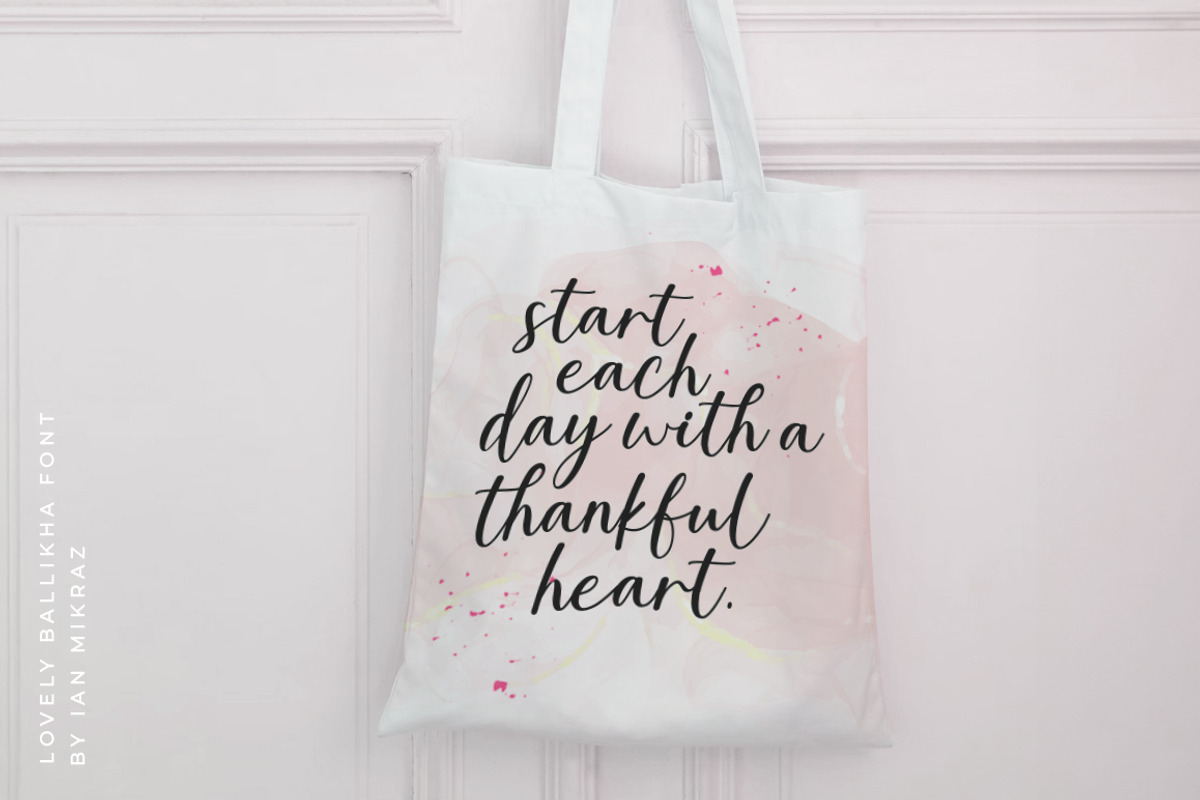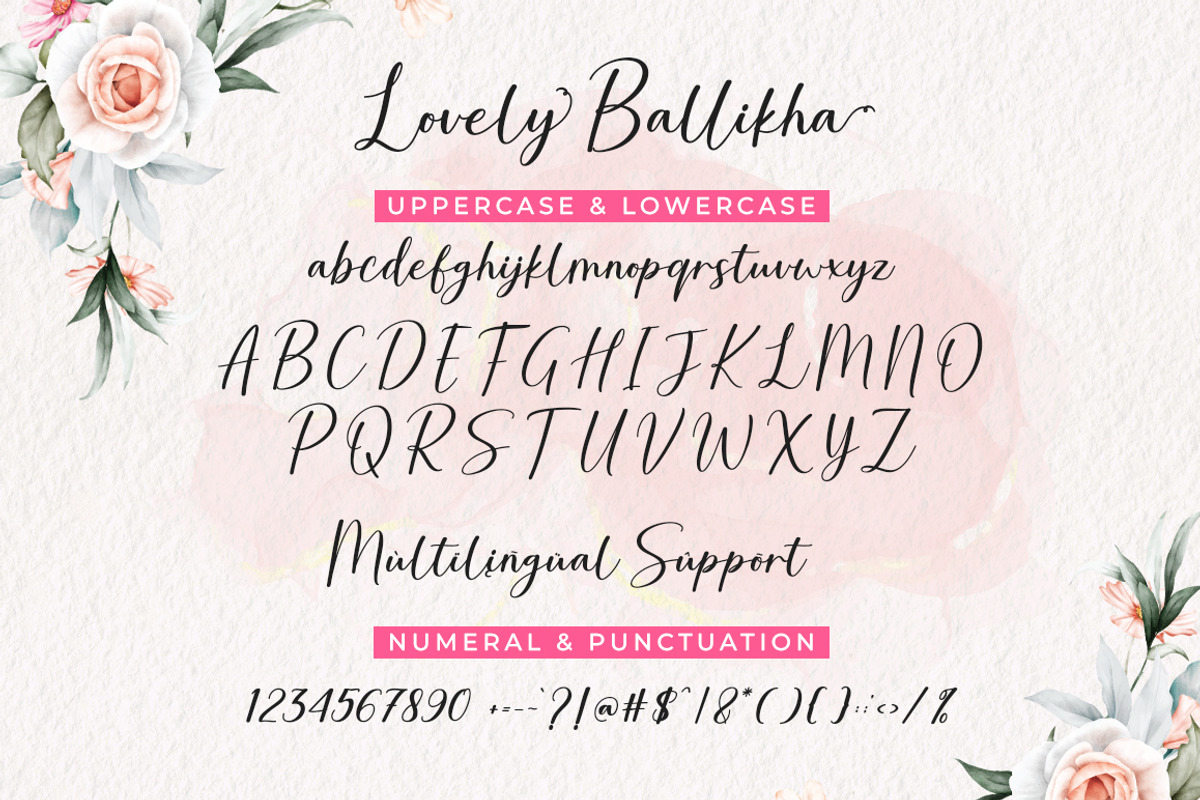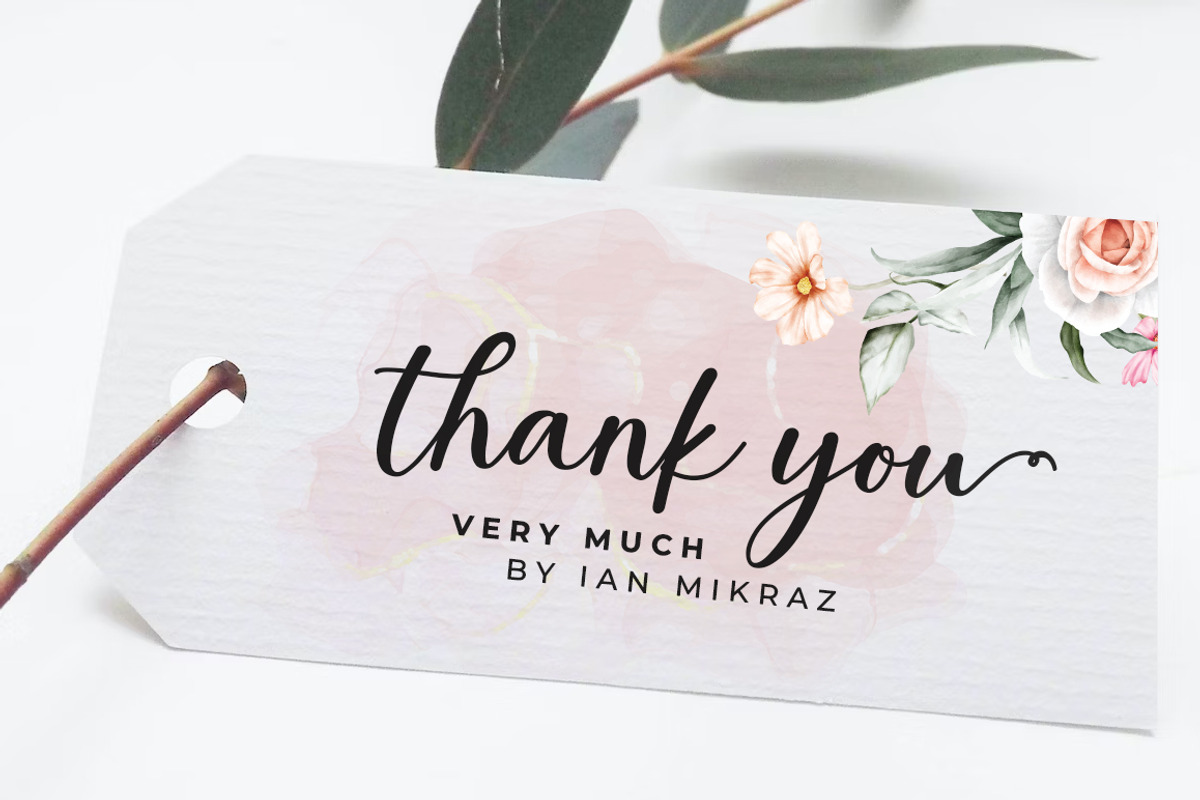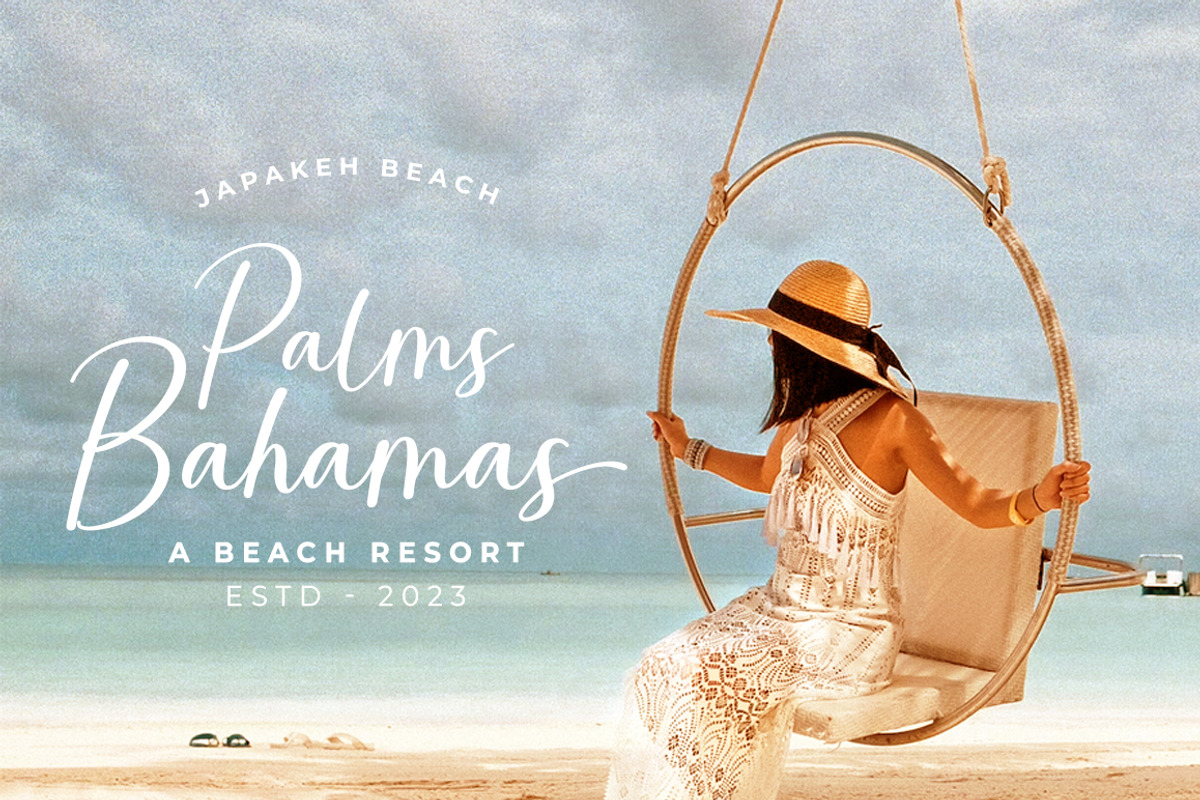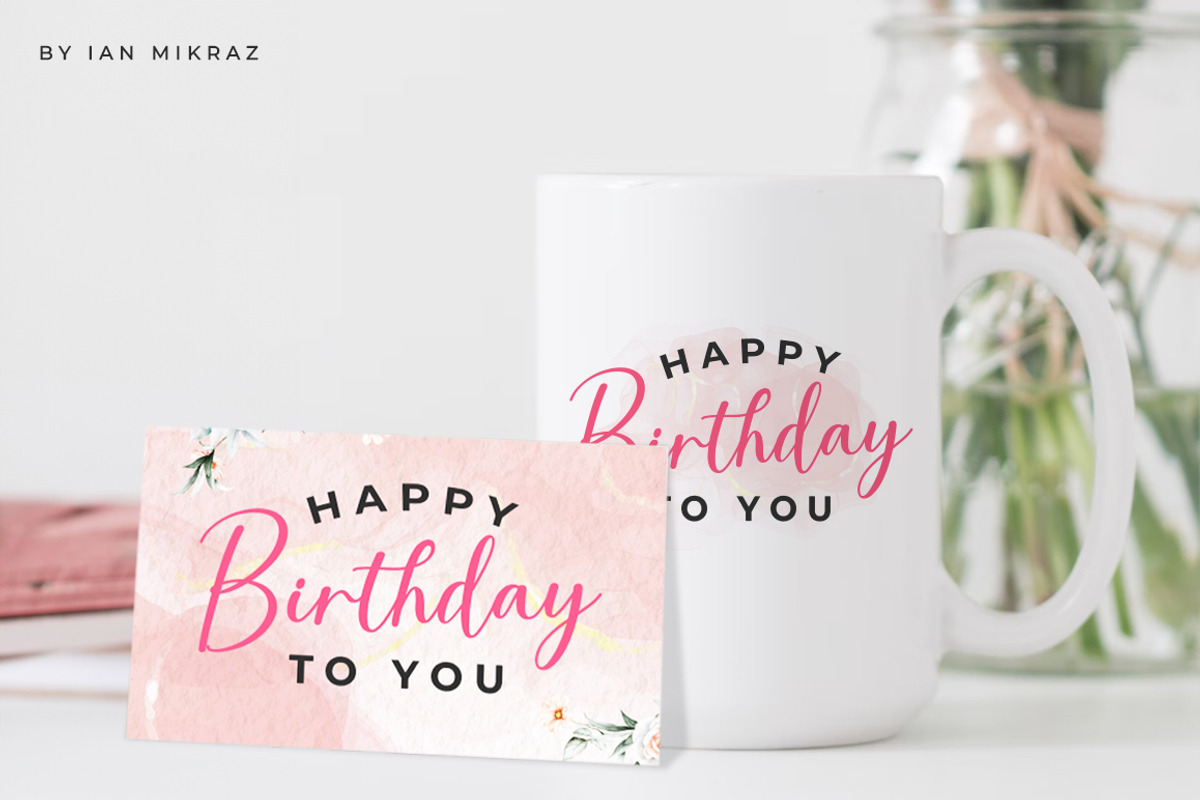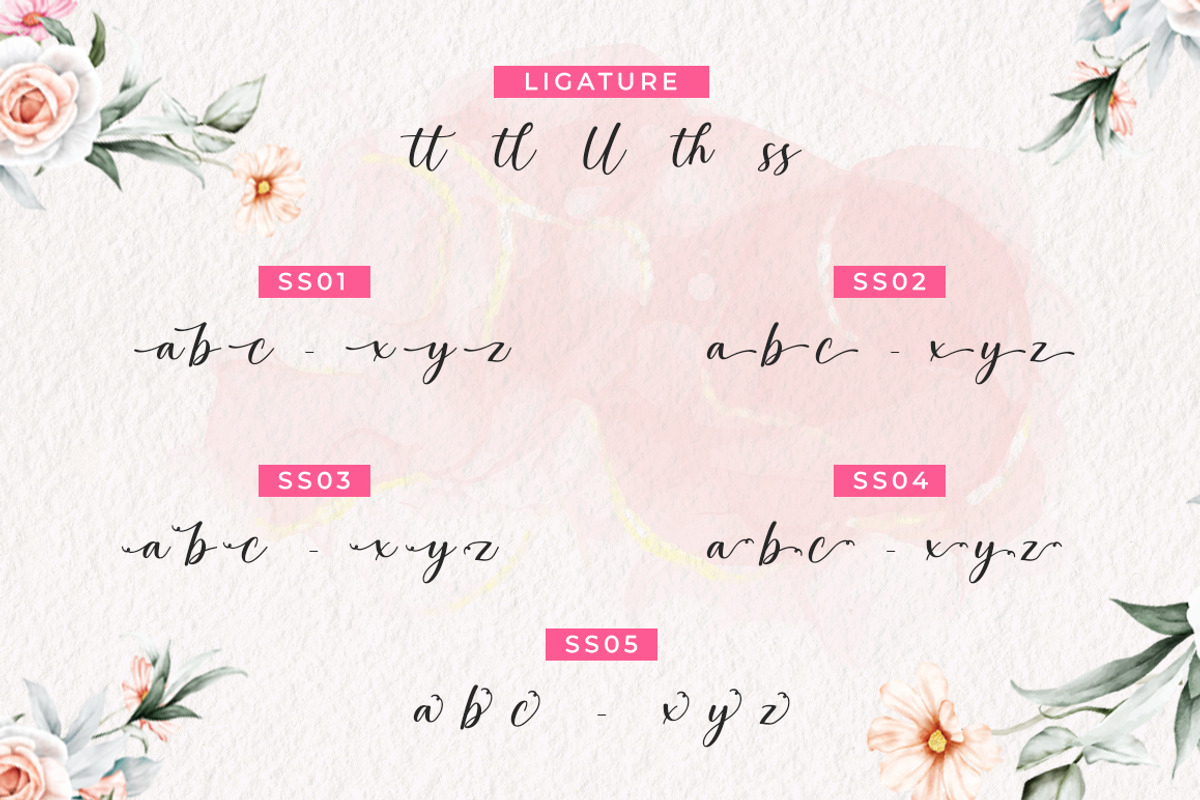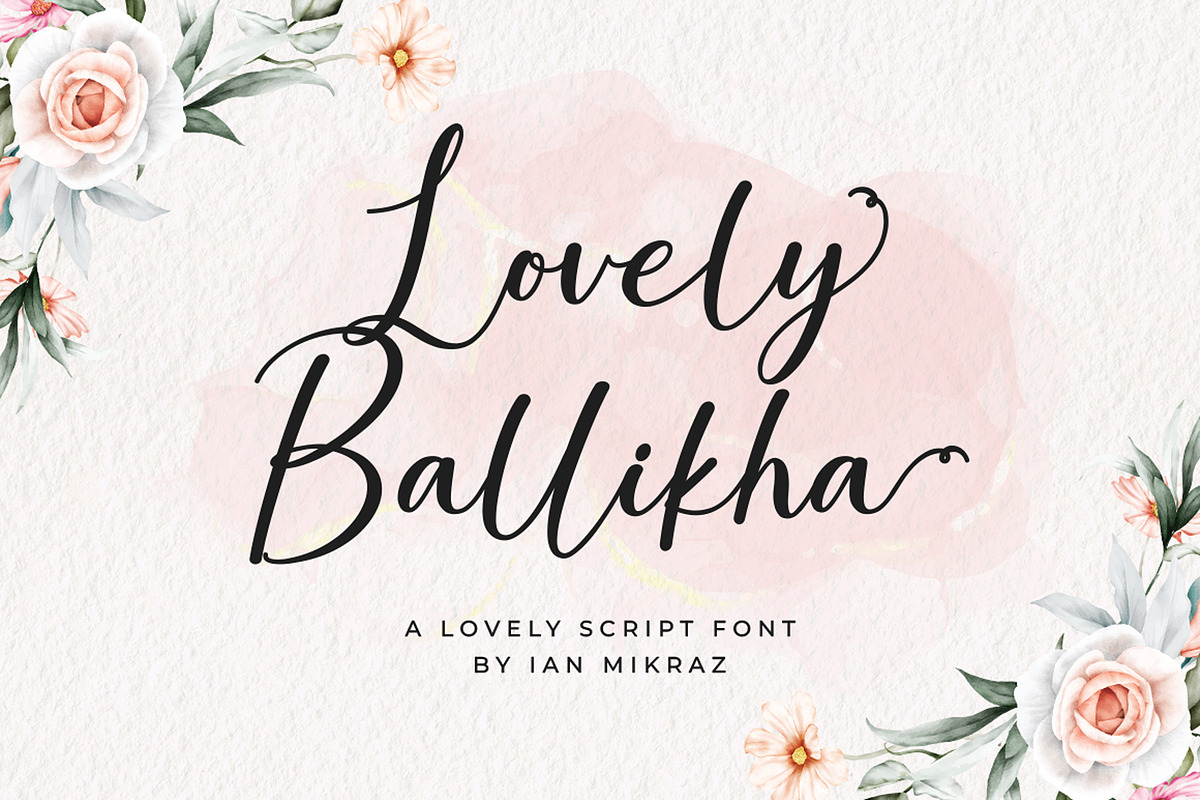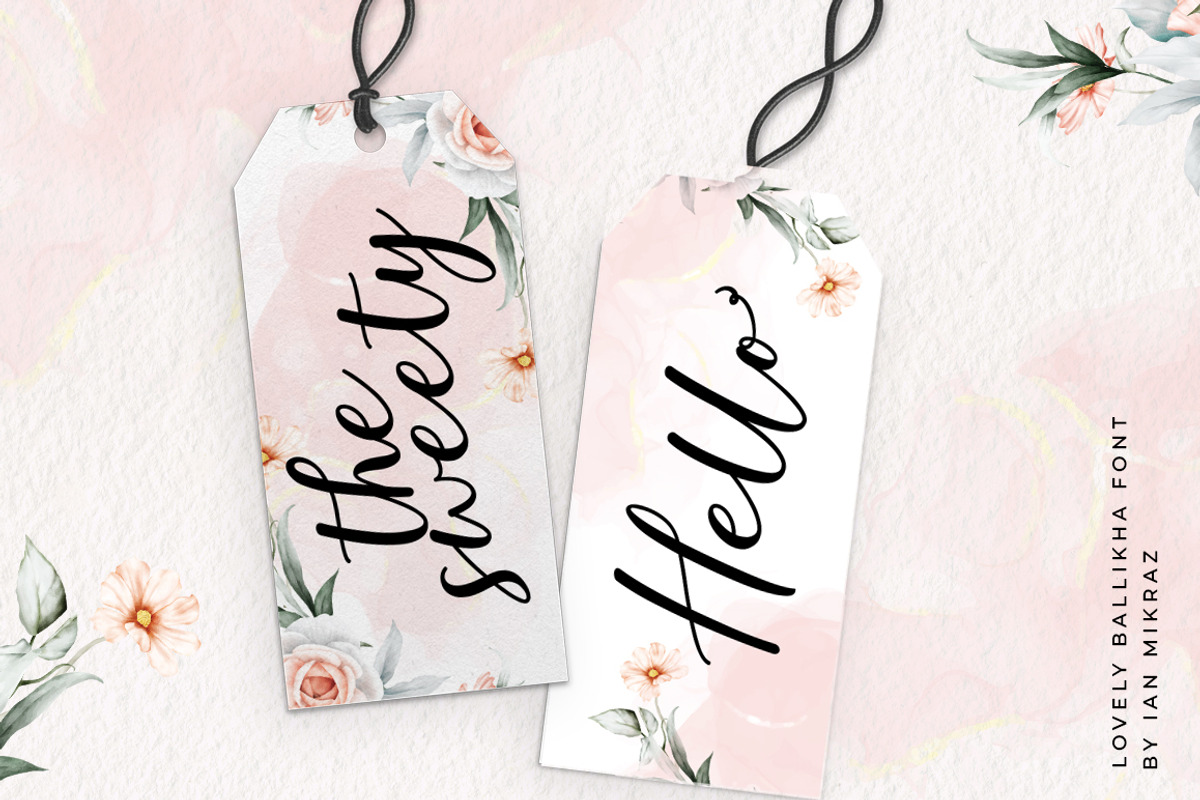
Lovely Ballikha - A Lovely Script Font
Say it with style using Lovely Ballikha, a stunning script font designed to add elegance and charm to your projects. With its graceful and flowing strokes, this versatile typeface is perfect for wedding invitations, greeting cards, branding materials, and more.
Whether you're aiming for a sophisticated or a whimsical look, Lovely Ballikha effortlessly brings a touch of loveliness to every design. With its extensive character set and ligature features, this font allows you to create captivating and personalized typography that exudes warmth and character. Elevate your designs with Lovely Ballikha and let your creativity shine with every stroke and swirl.
Embrace the beauty of handcrafted typography with Lovely Ballikha, a delightful script font that adds a touch of sophistication to any project. Perfect for a variety of design needs, including wedding stationery, branding, logos, and social media graphics, Lovely Ballikha offers a range of stylistic alternates and ligatures that provide a unique and personalized touch to your text.
Whether you're crafting a romantic message or creating a charming logo, this font will effortlessly infuse your designs with elegance and grace, making every piece a true work of art.
- Standart ligatures